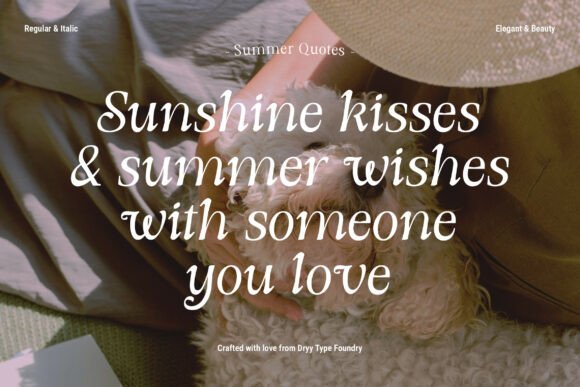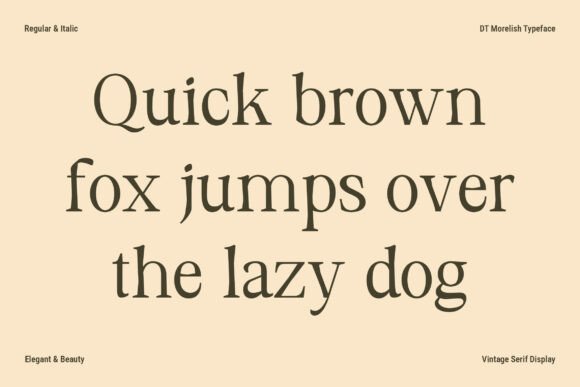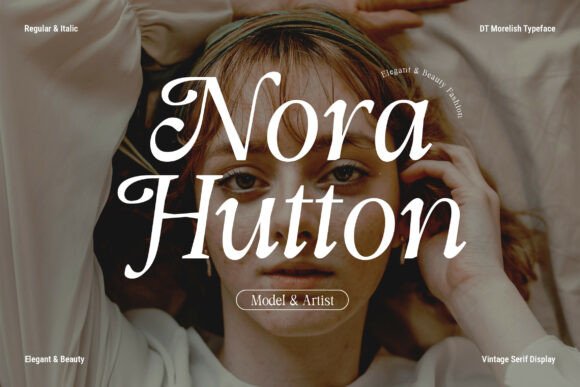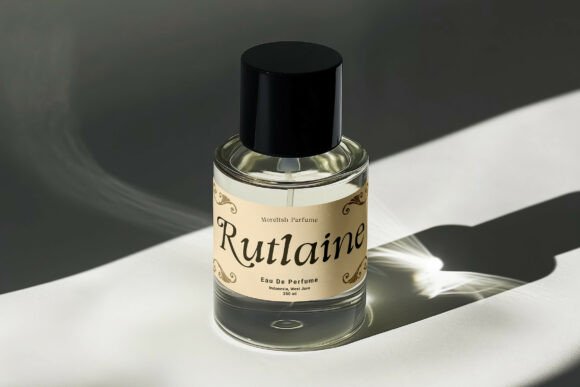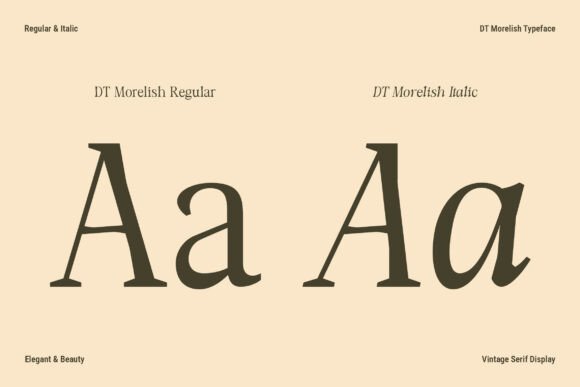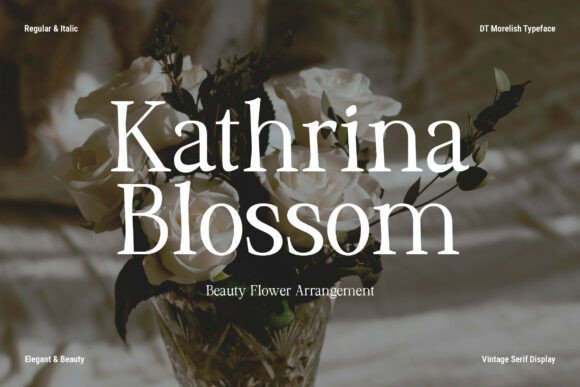
Introducing DT Morelish Font: Timeless Elegance Meets Modern Versatility
In the world of typography, few fonts manage to strike a balance between classic sophistication and modern flair. However, DT Morelish Font is an exception. This elegant vintage serif display font seamlessly blends timeless charm with contemporary versatility, making it an ideal choice for designers and crafters seeking to elevate their creative projects.
The Essence of DT Morelish Font
DT Morelish is more than just a font; it’s a statement of style and refinement. With its graceful curves, refined serifs, and stylish ligatures, this font exudes an air of sophistication that is hard to match. Whether you’re working on editorial layouts, branding, packaging, or high-end designs, Morelish brings a level of polish and elegance that can transform any project into a masterpiece.
Key Features of DT Morelish Font
- Vintage Serif Elegance: Morelish boasts a classic serif design that harks back to traditional typography, yet its execution is distinctly modern, making it versatile for a wide range of applications.
- Graceful Curves and Refined Serifs: The font’s design is characterized by smooth, flowing curves and meticulously crafted serifs, adding depth and character to any text.
- Stylish Ligatures: Enhance your typography with Morelish’s elegant ligatures, designed to add a touch of sophistication and fluidity to your text.
- Dual-Style Availability: Available in both regular and italic versions, Morelish offers flexibility for various design needs, from body text to headings and quotes.
Applications of DT Morelish Font
The versatility of DT Morelish makes it suitable for a myriad of design projects. Here are some of the areas where Morelish truly shines:
- Editorial Layouts: Bring a touch of classic elegance to magazines, newspapers, and digital publications with Morelish’s refined and readable design.
- Branding and Logo Design: Establish a brand identity that exudes luxury and sophistication. Morelish’s unique character set makes it perfect for creating memorable logos and brand names.
- Packaging Design: Elevate product packaging with a font that communicates quality and elegance. Morelish can help your product stand out on crowded shelves.
- High-End Designs: For luxury goods, high-end services, or sophisticated digital platforms, Morelish provides the perfect typographic solution to convey exclusivity and refinement.
Why Choose DT Morelish Font?
In a sea of fonts, DT Morelish stands out for several reasons:
- Timeless Appeal: Unlike trendy fonts that may quickly become outdated, Morelish’s classic design ensures it remains relevant for years to come.
- Versatility: Its adaptability across various mediums and design applications makes Morelish a valuable addition to any designer’s toolkit.
- Ease of Use: Designed with readability in mind, Morelish is not only beautiful but also functional, suitable for both headings and body text.
DT Morelish Font is a masterpiece of modern typography, blending the best of vintage elegance with the demands of contemporary design. Its sophisticated curves, refined serifs, and stylish ligatures make it an indispensable asset for designers and crafters aiming to create visually stunning and effective designs. Whether you’re working on a luxury brand campaign, a high-end product launch, or a sophisticated editorial project, Morelish is the perfect choice to bring your vision to life.
Embrace the timeless elegance and modern versatility of DT Morelish Font in your next creative endeavor. Experience how this exceptional typeface can elevate your designs, communicate luxury, and leave a lasting impression on your audience.